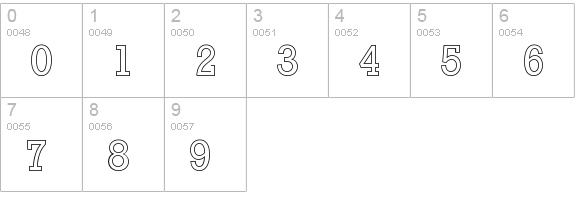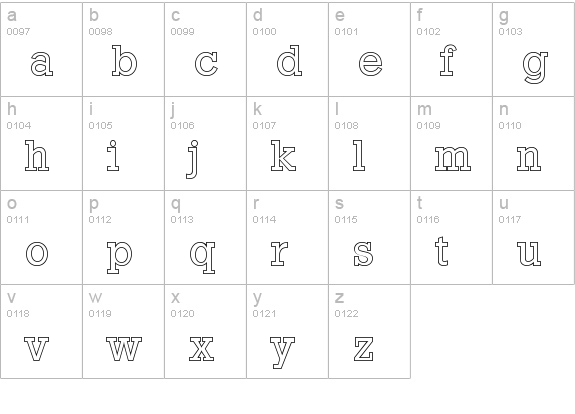
StaffordOutline-Regular Font Details
StaffordOutline-Regular is the standard, neutral variant in the StaffordOutline typeface family \xE2\x80\x94 well suited to general body text, paragraphs, and standard typographic work.
StaffordOutline-Regular is a modern and stylish font that exudes elegance and sophistication. Its clean lines and unique design make it perfect for a variety of projects, from branding to packaging to editorial design. This font is versatile and can be used for both headings and body text, adding a touch of sophistication to any design. What makes StaffordOutline-Regular even better is that it is available for free download at FontsMarket.com. This means that you can easily access this beautiful font and use it in your projects without any cost. Don't miss out on the opportunity to enhance your designs with the timeless appeal of StaffordOutline-Regular. Download it today and elevate your design game!